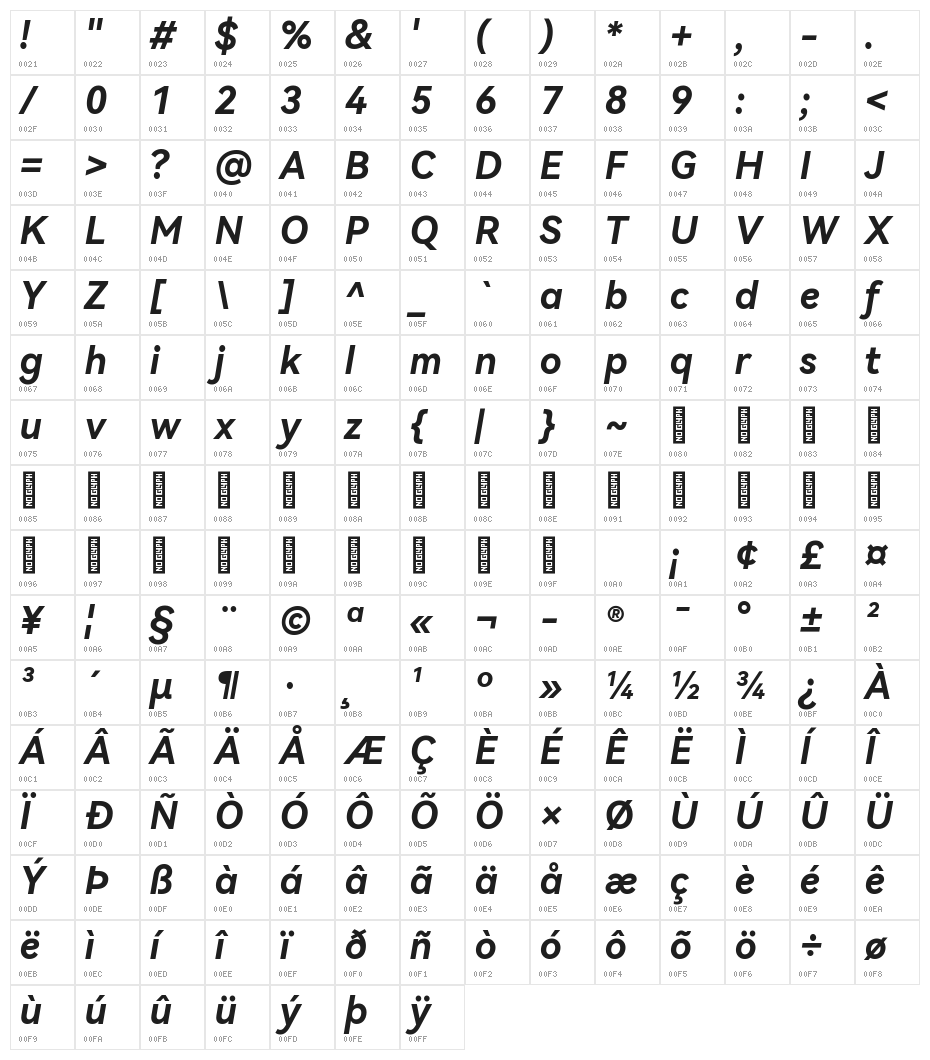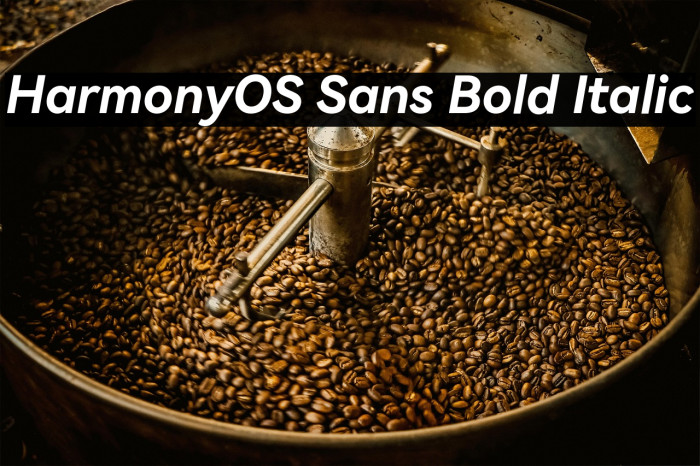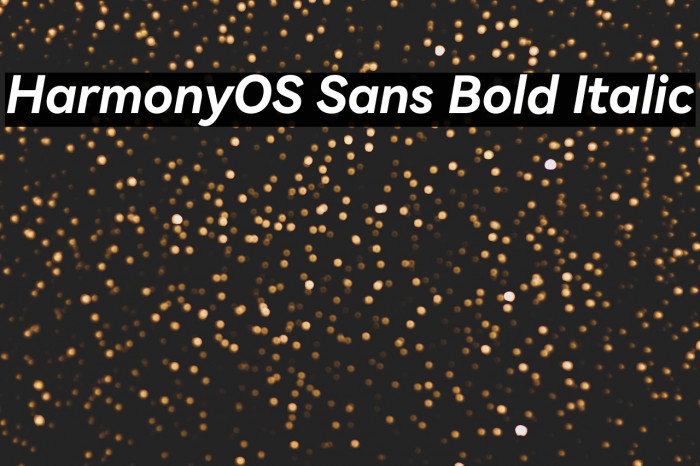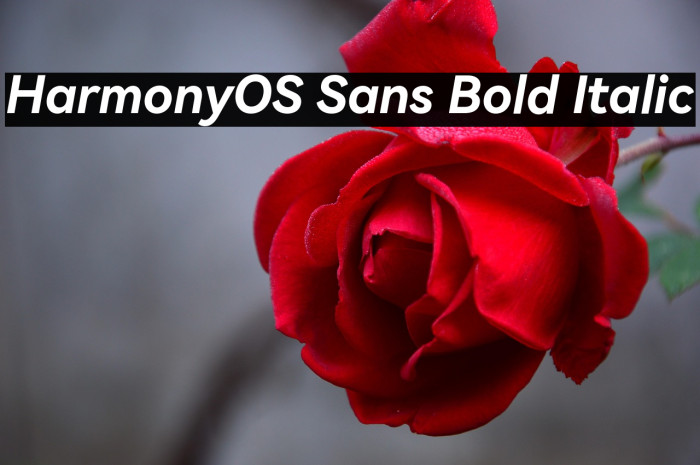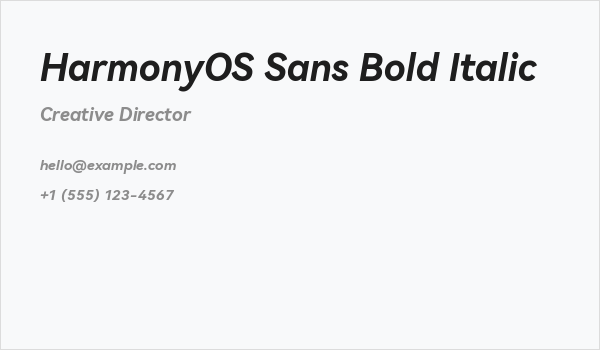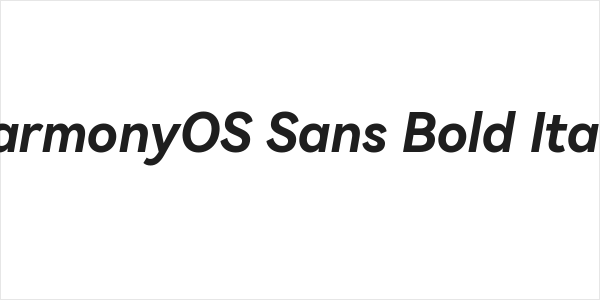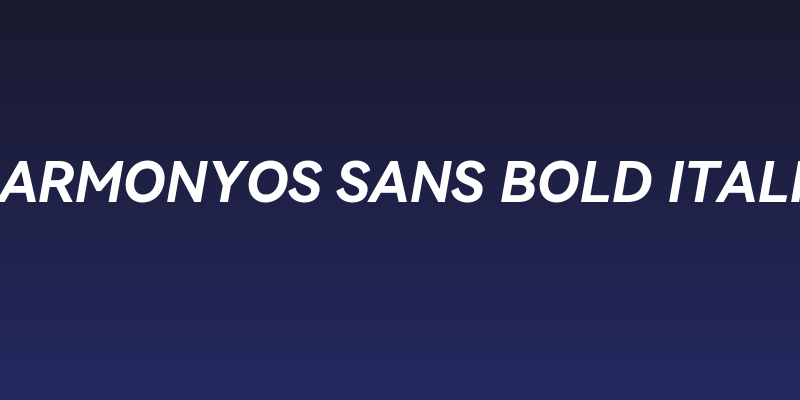
HarmonyOS Sans Bold Italic Font
HarmonyOS Sans Bold Italic Description
This font exhibits a modern and clean sans-serif style with a bold and italicized appearance. The characters are well-defined with a slight slant, enhancing readability while adding a dynamic feel. The uppercase and lowercase letters maintain a consistent design, ensuring uniformity across text. Numbers and special characters are crafted with the same attention to detail, making them easily distinguishable. The overall design is sleek and professional, suitable for various digital and print applications. The font's bold weight and italic style contribute to its strong visual impact, making it ideal for attention-grabbing headlines and titles.
| Use Case | Headlines, Logos, Digital Interfaces |
| Proposed Projects | Ideal for branding, advertising, digital interfaces, and editorial design where a strong, modern presence is required. |